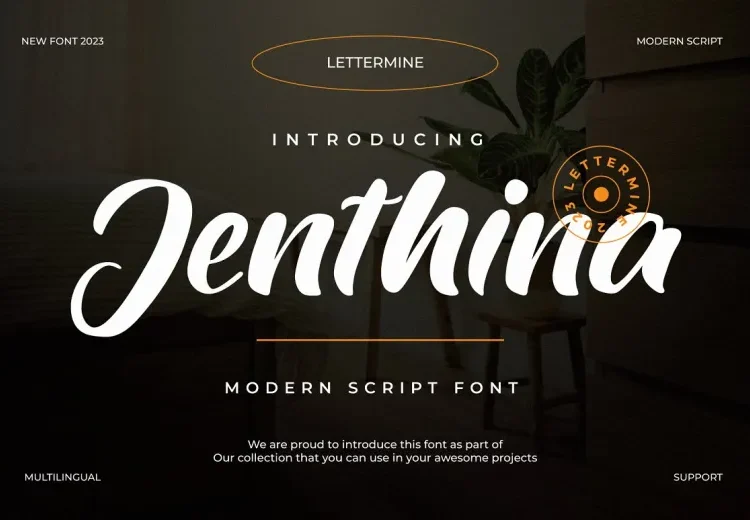
Jenthina Font
Jenthina is a captivating and versatile handwritten script font that effortlessly blends modernity with elegance. Perfect for a wide range of design projects, including those in the food and fashion industries, as well as for celebrations such as birthdays, weddings, and engagements, Jenthina adds a distinctive touch of sophistication.
With its unique handwritten style, Jenthina draws attention and elevates the overall design, making it a standout choice for any project.